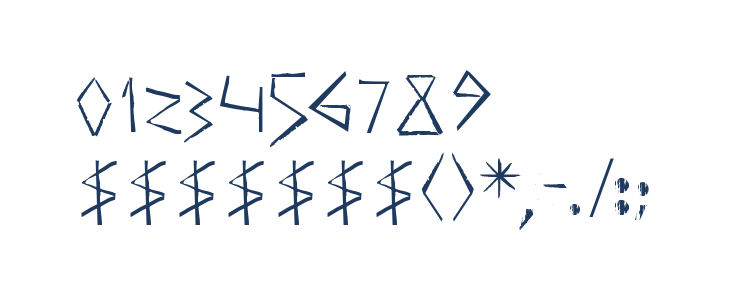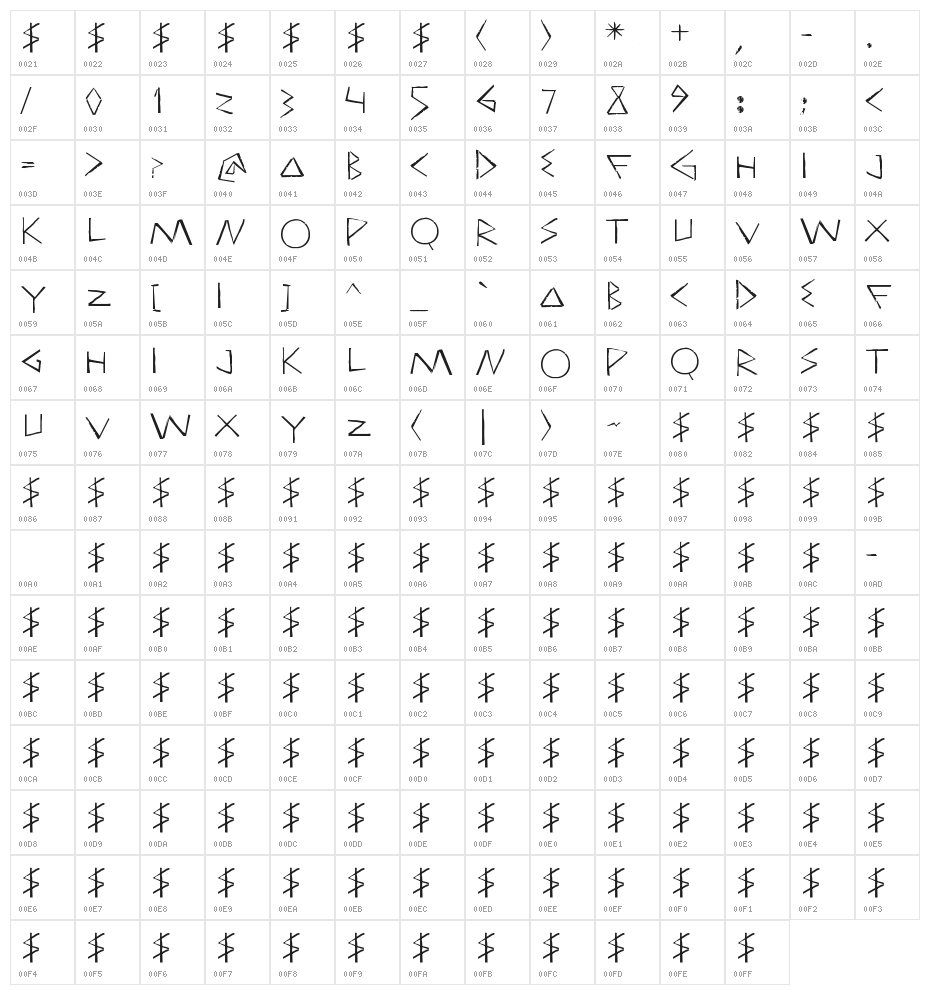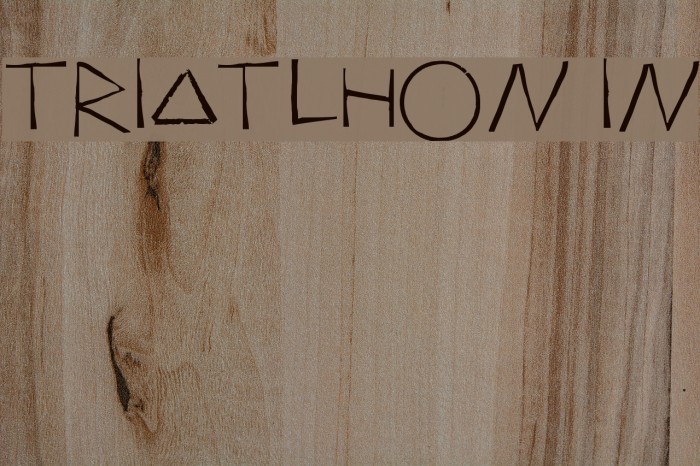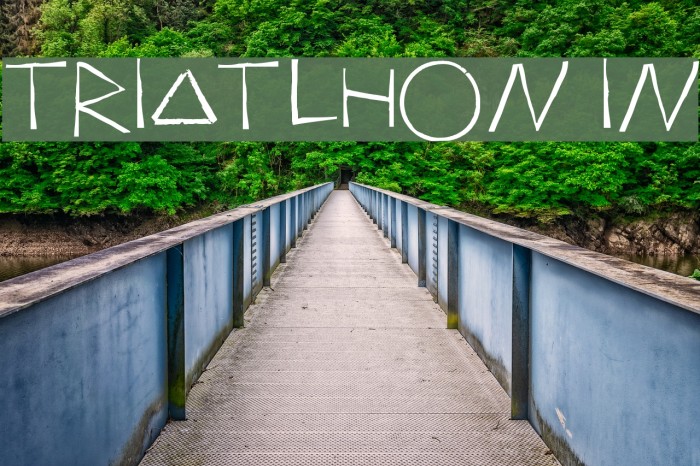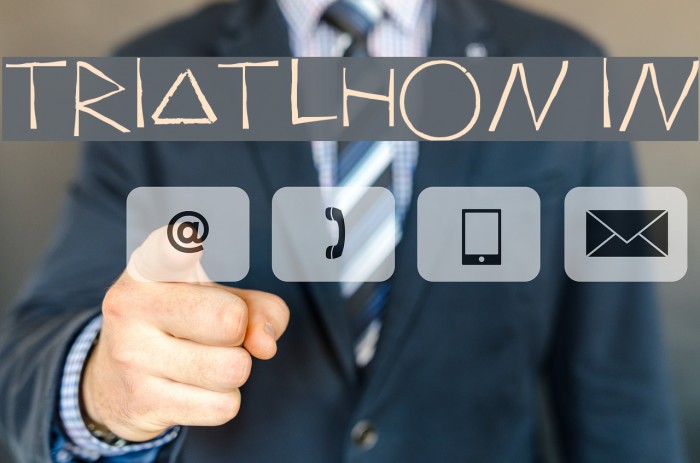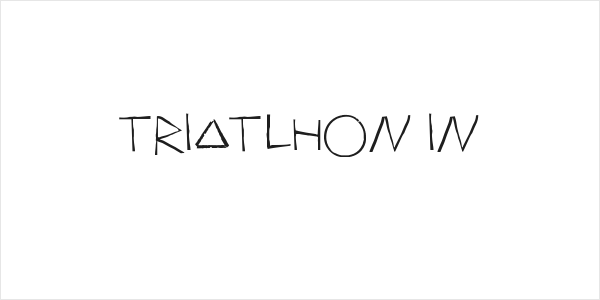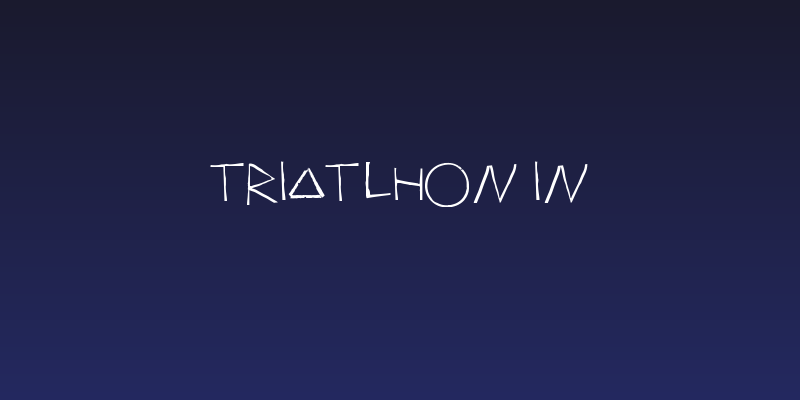
Triatlhon In Font
Triatlhon In Description
This font features a rugged, hand-drawn style with sharp, angular lines and a distressed texture. The uppercase and lowercase letters maintain a consistent geometric form, with some characters exhibiting unique, artistic variations. The numerals follow the same aesthetic, providing a cohesive look across all characters. Special characters are included, each designed with the same edgy, rough-hewn appearance. This font's distinctive style makes it suitable for projects that require a bold, unconventional look.
| Proposed Projects | Ideal for edgy branding, posters, album covers, and any design needing a bold, artistic touch. |